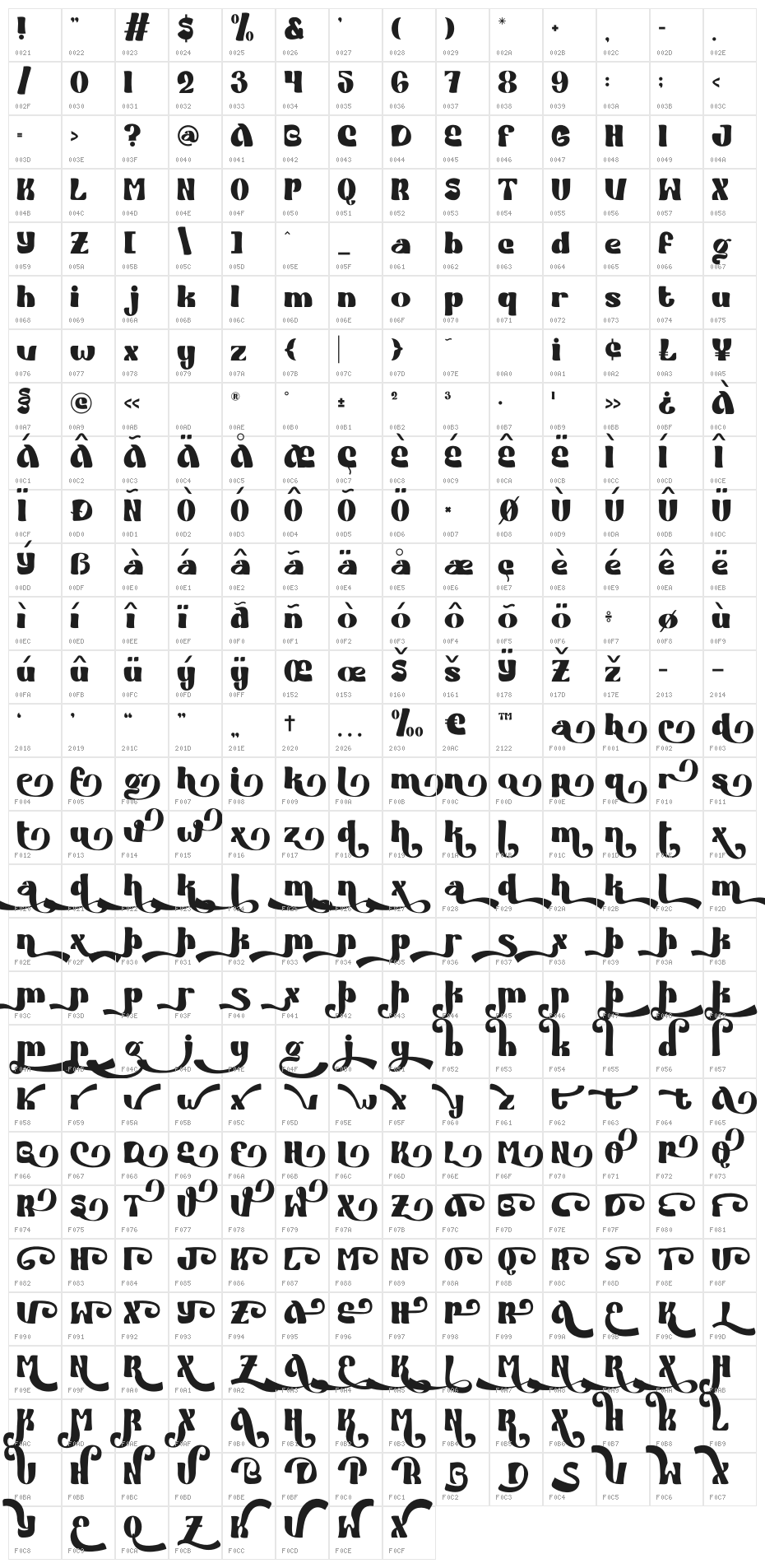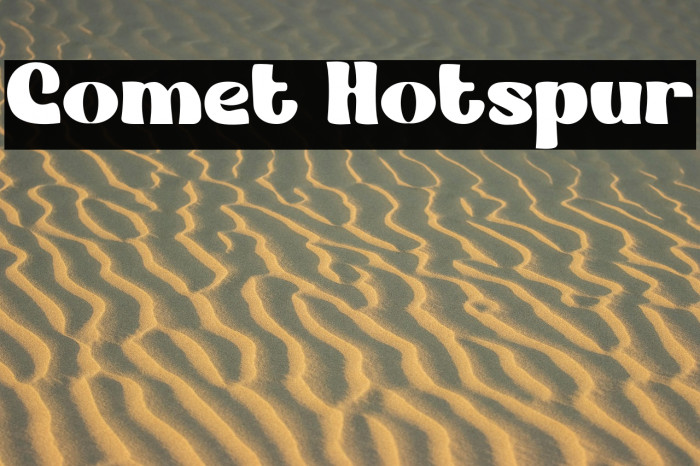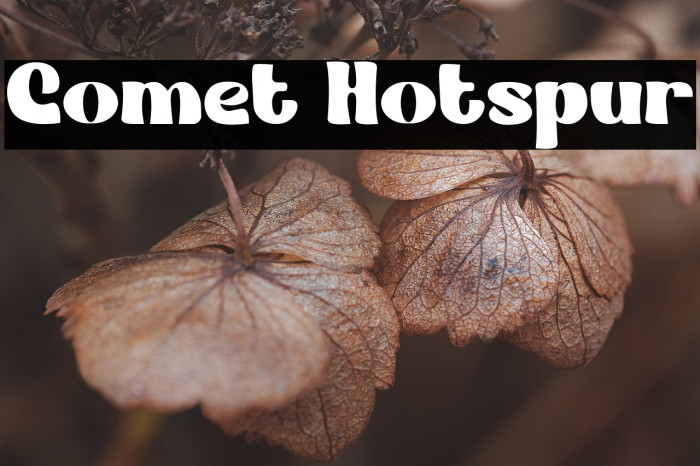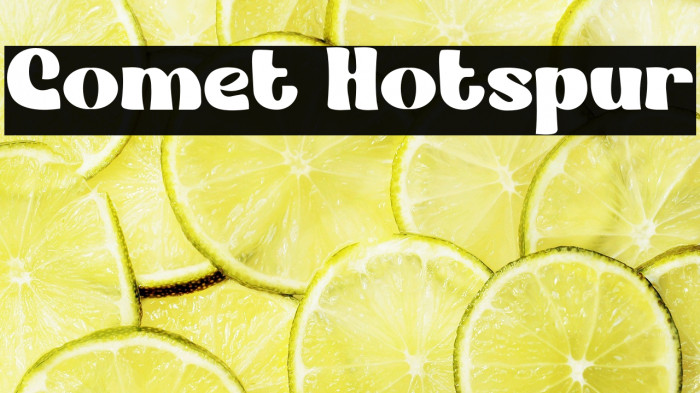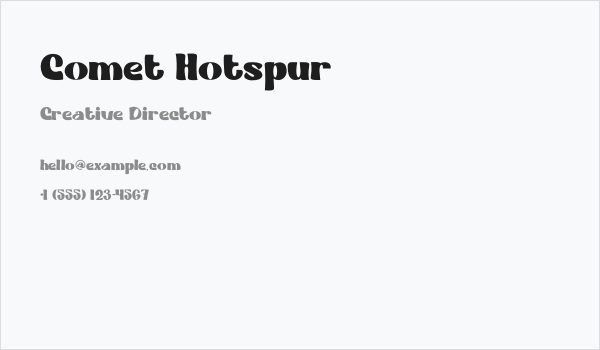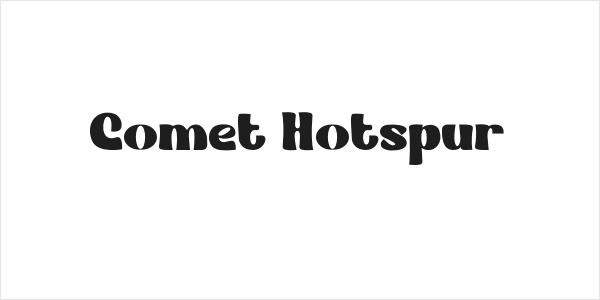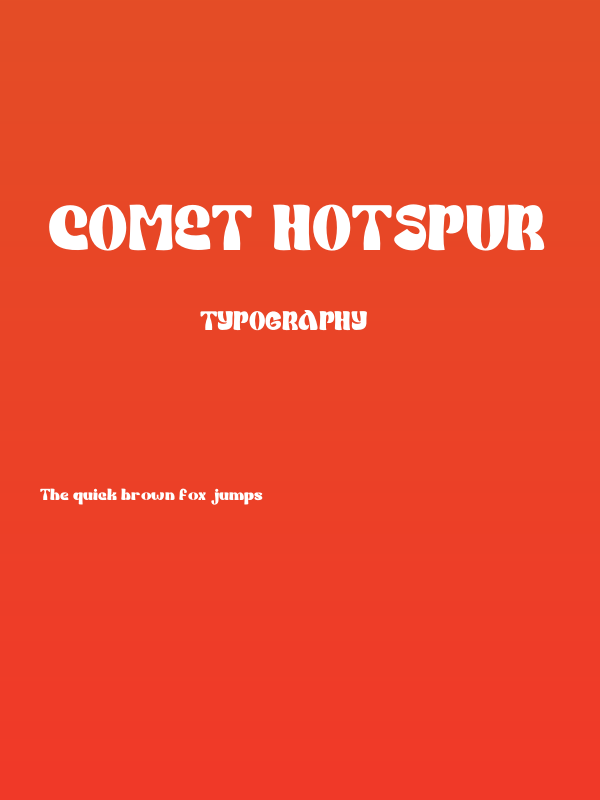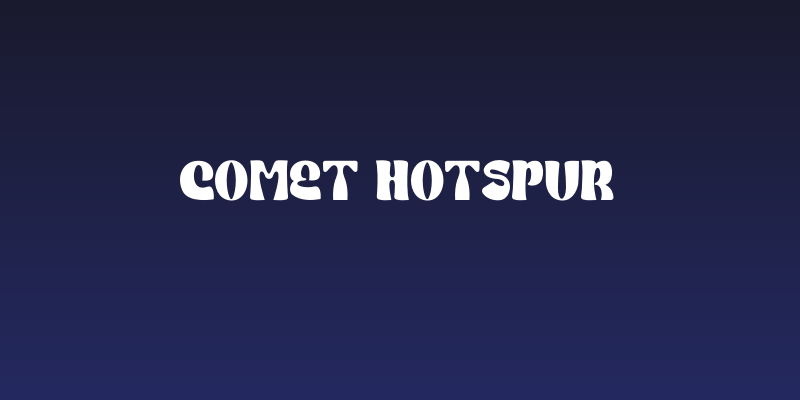
Comet Hotspur Font
Comet Hotspur Description
This font features a bold, playful design with thick, rounded strokes and a whimsical flair. The characters are highly stylized, with exaggerated curves and a sense of movement that gives the font a lively and dynamic appearance. The uppercase and lowercase letters maintain a consistent style, while the numbers and special characters complement the overall aesthetic. The font's unique personality makes it stand out, making it ideal for creative and eye-catching designs.
| Proposed Projects | Ideal for posters, branding, children's books, and playful graphic designs. |